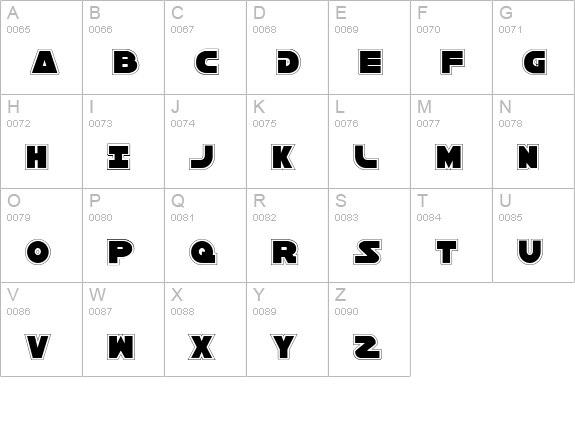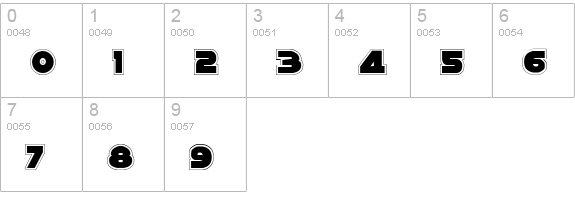
Han Solo Pro Font Details
Introducing Han Solo Pro, a sleek and stylish font that captures the essence of the iconic Han Solo character from the Star Wars saga. With its bold and confident letterforms, Han Solo Pro is perfect for adding a touch of adventure and rebellion to your designs. This font is not only visually striking but also incredibly versatile, making it suitable for a wide range of creative projects. Whether you're designing a movie poster, creating a logo for a sci-fi themed brand, or adding a unique flair to your social media graphics, Han Solo Pro is the perfect choice. What sets Han Solo Pro apart is its seamless blend of modern design and nostalgic charm. It pays homage to the classic typography of the Star Wars universe while adding a contemporary twist. The result is a font that is both timeless and cutting-edge. But what makes Han Solo Pro truly special is that it is freely available to download at FontsMarket.com. Yes, you read that right! You can get your hands on this incredible font without spending a dime. FontsMarket.com is a trusted source for high-quality fonts, and they are proud to offer Han Solo Pro as a free download for all design enthusiasts. So why wait? Unleash your creativity and bring a touch of Han Solo's rebellious spirit to your designs with Han Solo Pro font. Download it now from FontsMarket.com and let your imagination soar to new heights. May the force be with you!